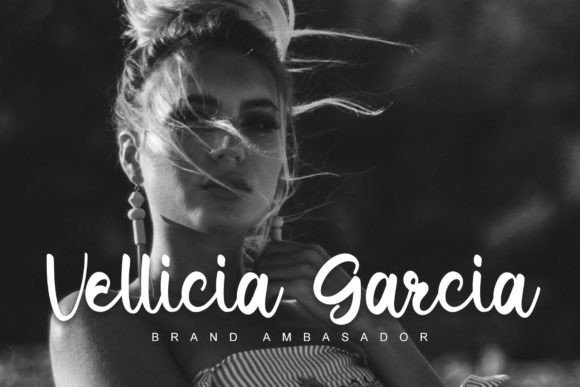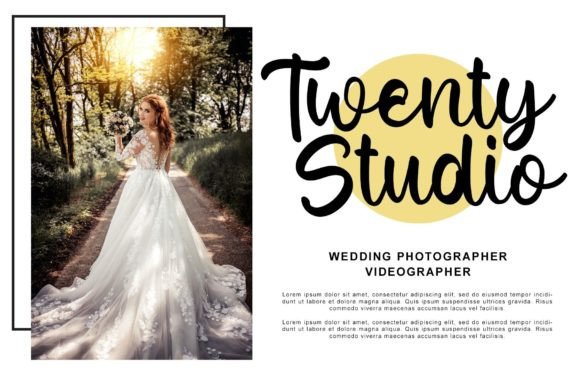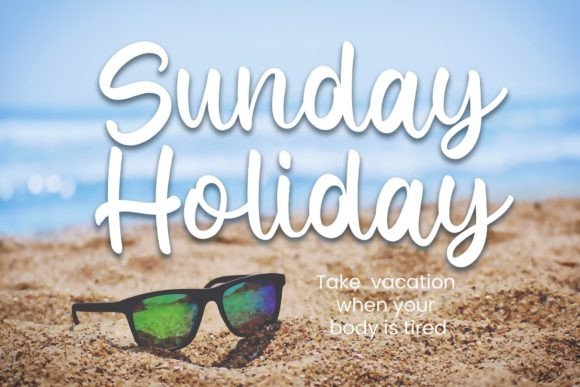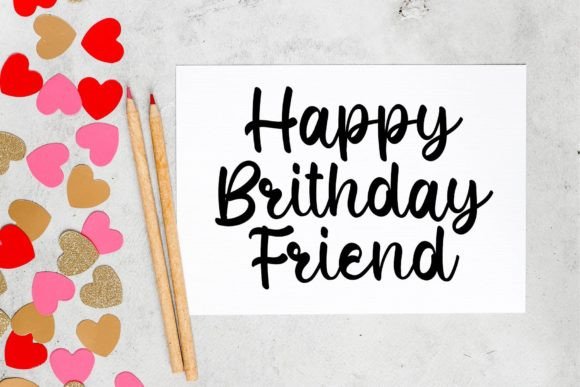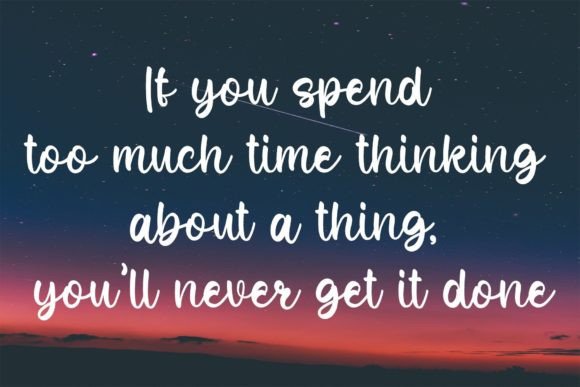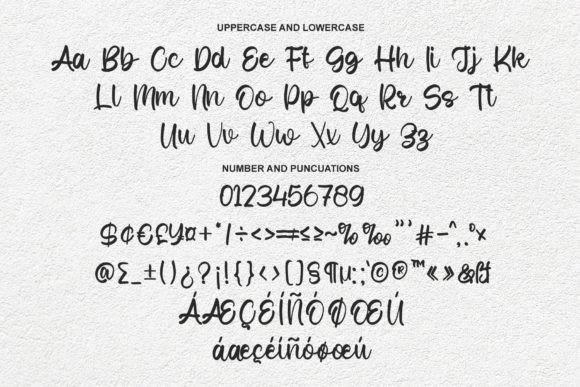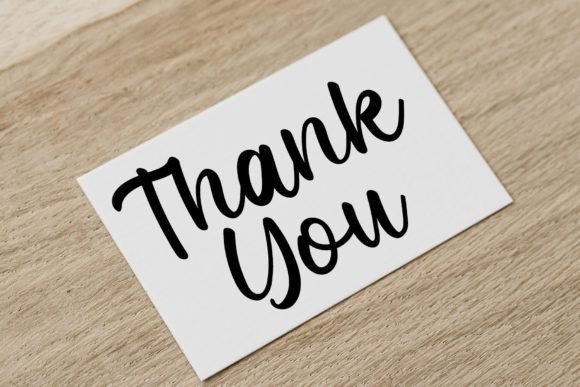
Cheat Font
About Cheat Font
Cheat, an enchanting and sweet calligraphy typeface, exudes a romantic allure as its characters gracefully dance along the baseline. This font is more than a mere typeface; it’s a design embellishment that infuses a luxury spark into any creative project. The expressive nature of Cheat adds a touch of romance and sophistication, making it a perfect choice for a variety of design endeavors.
The characters in Cheat are crafted with a meticulous touch, each one contributing to the overall aesthetic dance of the font along the baseline. This distinctive quality ensures that every letter becomes a part of a visual performance, enhancing the overall beauty of the design. Whether used in invitations, cards, or any other romantic-themed project, Cheat elevates the visual language with its sweet and captivating calligraphic style.
One of Cheat’s notable features is its PUA encoding, which unlocks a treasure trove of amazing glyphs and ligatures. This not only adds versatility to the font but also provides designers with the flexibility to access a range of creative elements effortlessly. The ligatures, in particular, enhance the fluidity and cohesion of the characters, allowing for a seamless and harmonious presentation.
When applied to design projects, Cheat becomes a catalyst for luxury. Its romantic and sweet demeanor adds a layer of sophistication, making it suitable for a wide array of applications. From wedding invitations to branding materials, Cheat imparts a sense of elegance that resonates with those seeking to create a visually stunning and memorable impact.
In summary, Cheat is more than a calligraphy typeface; it is a romantic and sweet design companion that brings a touch of luxury to your creative endeavors. With characters that dance gracefully along the baseline and PUA encoding unlocking a world of creative possibilities, Cheat becomes a valuable asset for designers looking to infuse their projects with an extra dose of charm and sophistication.